dot-font: Is It Type, Or Is It Art?
Hebrew letters that melt, extrude spiky appendages, and crawl around on three-dimensional surfaces—those are the disturbing and inventive forms that Oded Ezer creates when he wants to get away from everyday typography.
Ezer is a versatile graphic designer and type designer working in Israel, where his poster, logo, and publication designs reflect the commercial side of his work. His angular Hebrew typeface family Maya was honored in both the ATypI bukva:raz! type-design competition and the Type Directors Club’s TDC2 competition in 2001, and was shown among the winners in the book Language Culture Type. But Ezer also practices experimental typography that he calls “typo art,” manipulating Hebrew letters in space and turning type into three-dimensional objects.
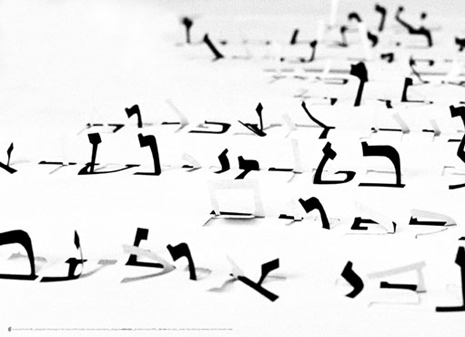
One of Oded Ezer’s poster experiments, “The Message” (2001), which he calls “a typographic homage to the music of the Israeli composer Arye Shapira.”
Communicating Rooms
In his most recent experimental project, “Rooms,” Ezer tried to release himself from the limitations of a two-dimensional format and create an environment that was both typographic and sensual. “My starting point,” he says, “was to see myself as a typographer who was creating sensations by combining materials, colors, and compositions in space. The initial sketches were ideas only, but they changed and developed when they became real. I hoped to create live, almost cinematic situations where the letters acted as ‘characters’ that had their roles.” The photographic records of these tactile constructions took on a documentarian feeling.
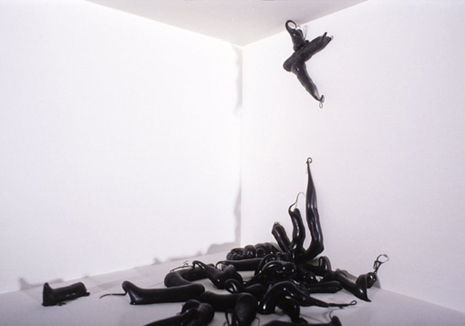
An image from the “Rooms” project. Is that aleph climbing the wall? Are those letters or writhing snakes below? What is going on here?
Ezer’s letters not only take on three-dimensional forms; they take on very strange three-dimensional forms. Some of them sprout sharp, pin-like legs, which lift the letters off the flat surface, but also look as though they could stab into the surface, to hold themselves there. They look menacing, which is just what Ezer intends: “The ‘legs’ are there to give a threatening nature to the letter.” Other letters take on melted or distressed forms; they can look a little like plastic toy soldiers that some willful child has half-melted. And the letters often seem to be moving, as though they were alive.
Under the wax-like accretions, letterforms are barely discernible.
Playing with the Typographic Environment
“I see myself as someone who uses his abilities to change and reshape the visual appearance of our environment in a way that will reflect the reality instead of hiding it,” says Ezer. “I see this as not only a visual or professional act, but also a political one.
“My work is composed of commercial, typeface, and experimental design. As a commercial designer I serve the needs of my clients; as a typeface designer, I am a sort of a meditator; creating the typo/artistic images is, for me, running away from the banal, predictable demands of the market, as if playing seriously a game like a six-year-old boy. In this last category, the sillier, the more absurd, the more politically incorrect and shameless the results are, the more successful I feel.”
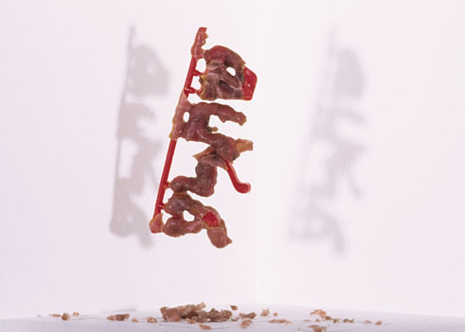
Has someone been playing with wax? Are those plastic snap-off letters? Is this supposed to be a word?
If you don’t read Hebrew, then there are fewer familiar forms to recognize among the morphed and melted shapes in these photographs. Yet they are letters, and Ezer explains that a Hebrew reader would recognize many of them. Some, though, are too altered to be clearly identifiable, even if Hebrew is your native language. The play of meaningful symbols and bizarre shapes is fundamentally abstract; it’s not typography.
A single letter, with extrusions, lying flat but looking as though it’s ready to spring up and start running about.
In fact, Ezer declares that what he is doing here is neither typography nor art. “When working on the ‘Rooms’ project, I call myself a ‘typo artist,’ and the medium I deal with is ‘typo art.’ This differs from ‘typographer’ or ‘type designer’ in the sense that I see this new field as neither traditional typography (which will always want to deliver a message) nor art (which deals with cultural aspects of society). I’m trying to define a language for a field I have just discovered.”
What are the Letters Thinking?
Ezer’s inspiration comes from many fields, including architecture, music, science, and philosophy. His idea, he says, “was always to play while experimenting, to experiment while playing.” The combination of photography and typography is reminiscent of some of Studio Dumbar’s posters in the 1980s, but in those, the type itself was usually a two-dimensional overlay. Others have explored letters as physical objects, of course, but there’s something kinetic and tactile about Ezer’s creations. They seem like scenes from some ongoing but inexplicable drama.